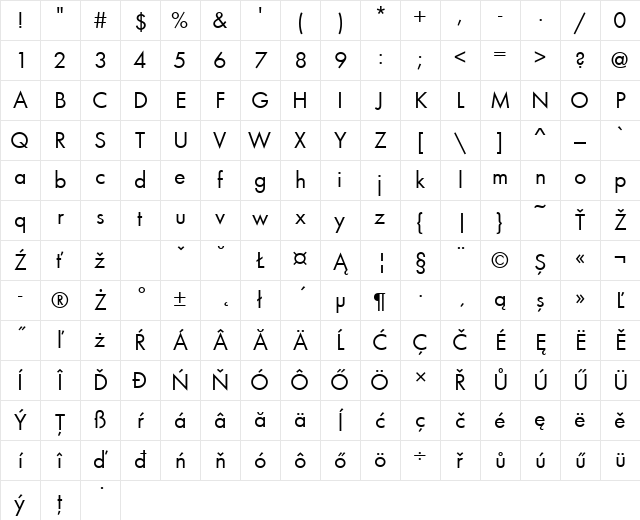
FuturaTEE Regular Free Font
FuturaTEE Regular
FuturaTEE Family
Complete FuturaTEE Regular glyph index. Displaying only characters natively supported by FuturaTEE Regular font.
Design Context for FuturaTEE
FuturaTEE has a distinctly futuristic character, with geometric precision and clean angles that feel at home in technology, gaming, and sci-fi contexts.